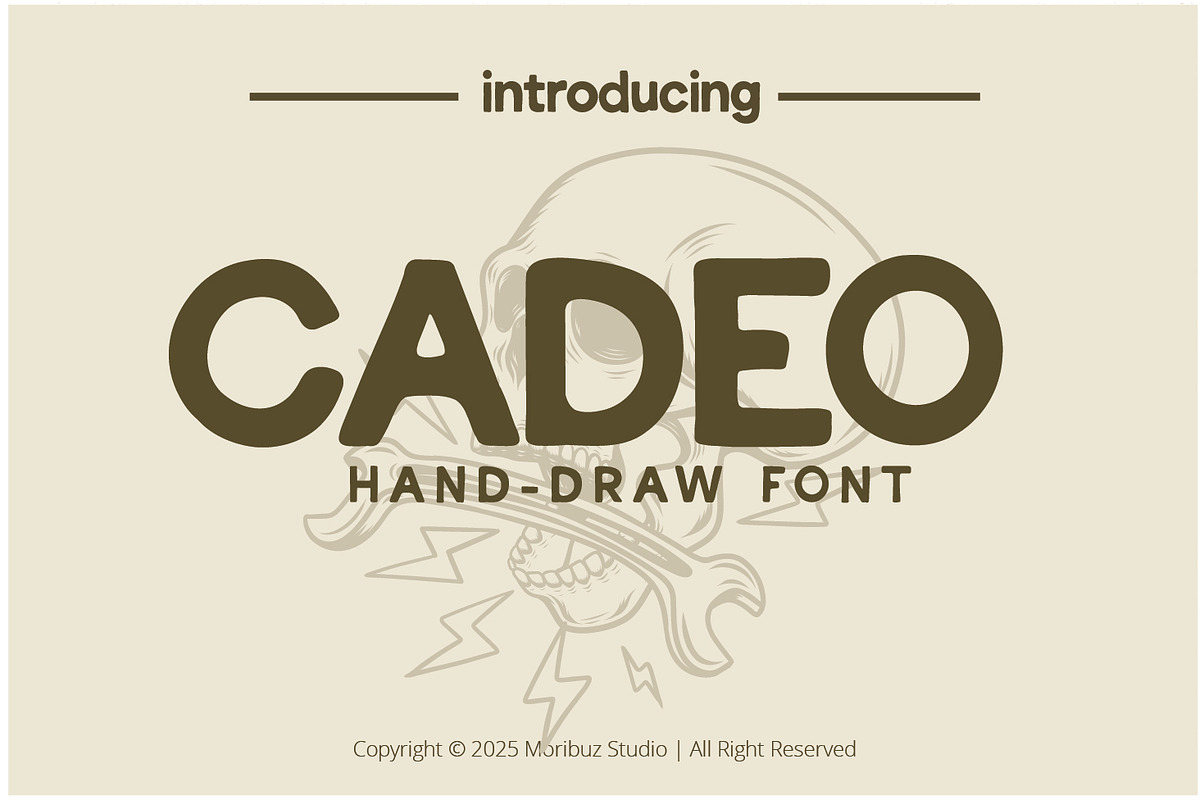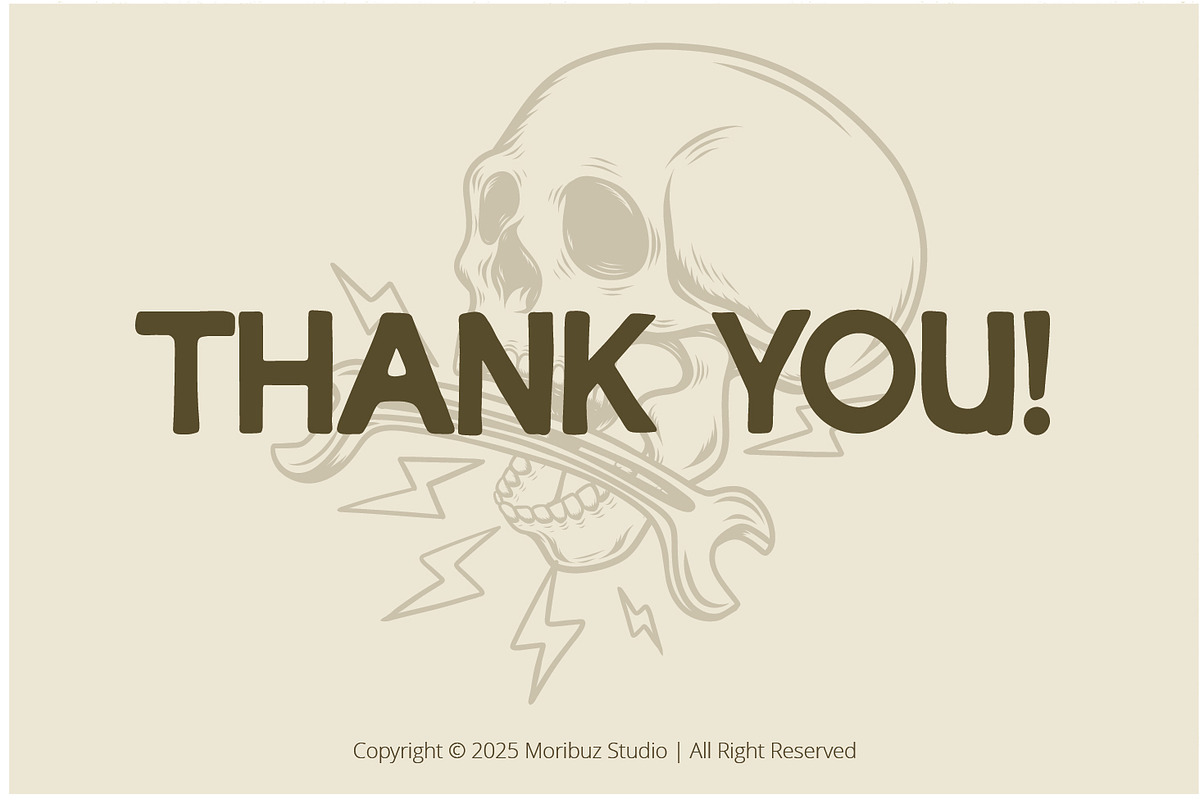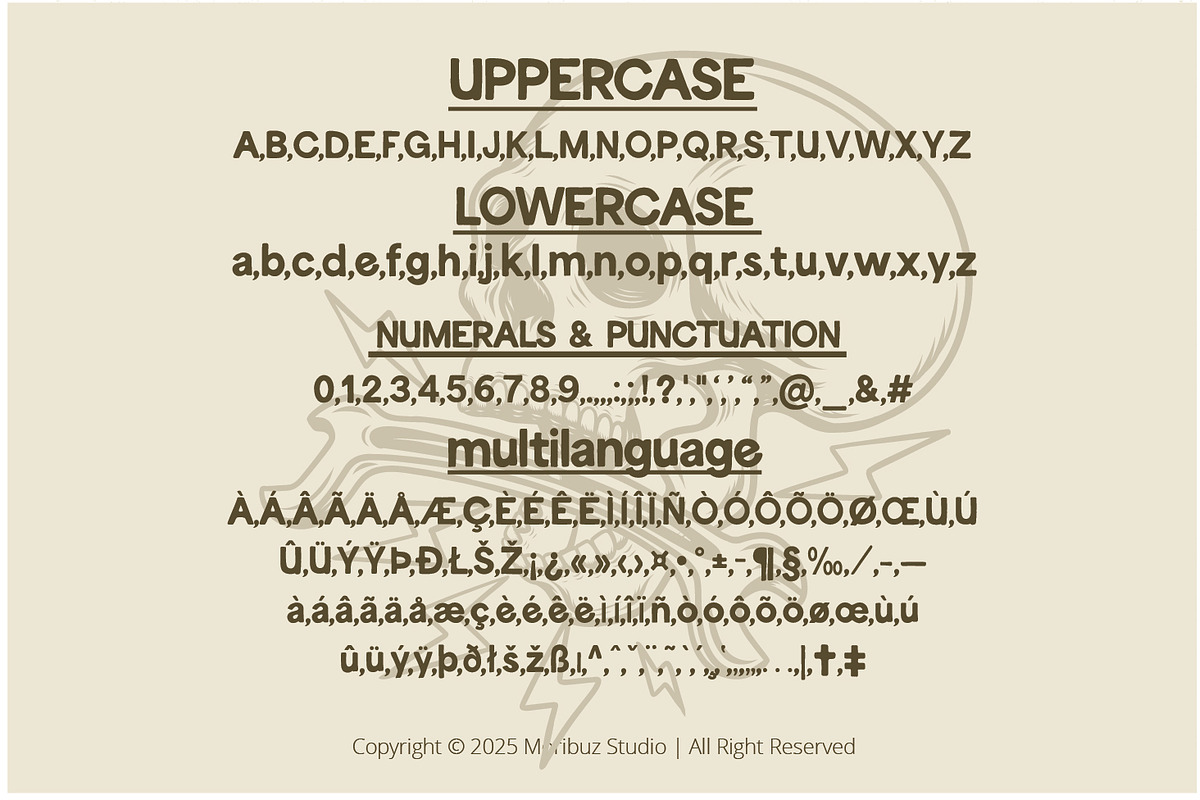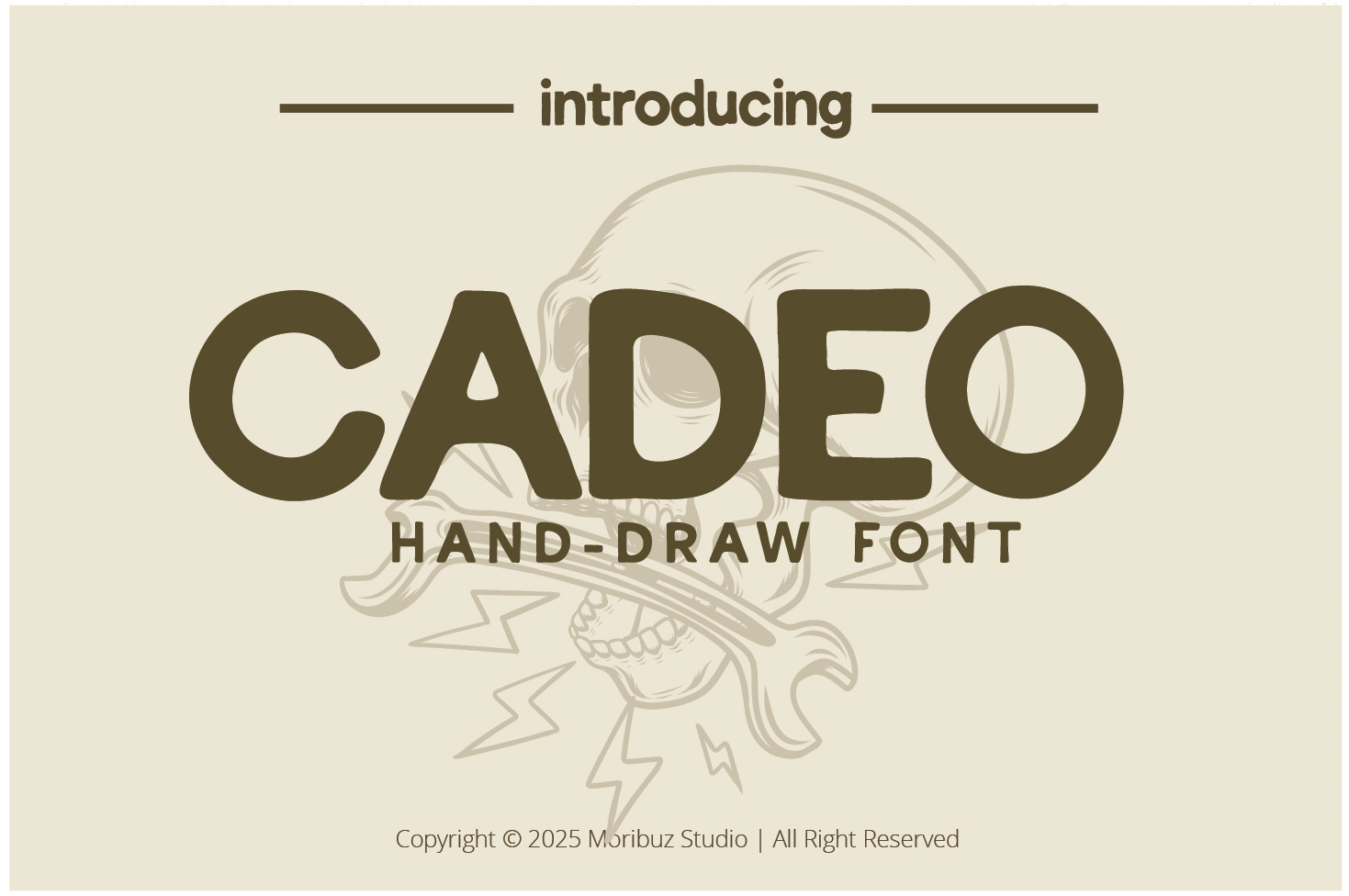
Cadeo | Vintage Sans Serif Fonts
Introducing a vintage font, Cadeo! This classic font is perfect for all your Logo and quirky creations! Use it to create pair it with illustrations, create minimal designs, label designs, and more!
Multilanguage Supports